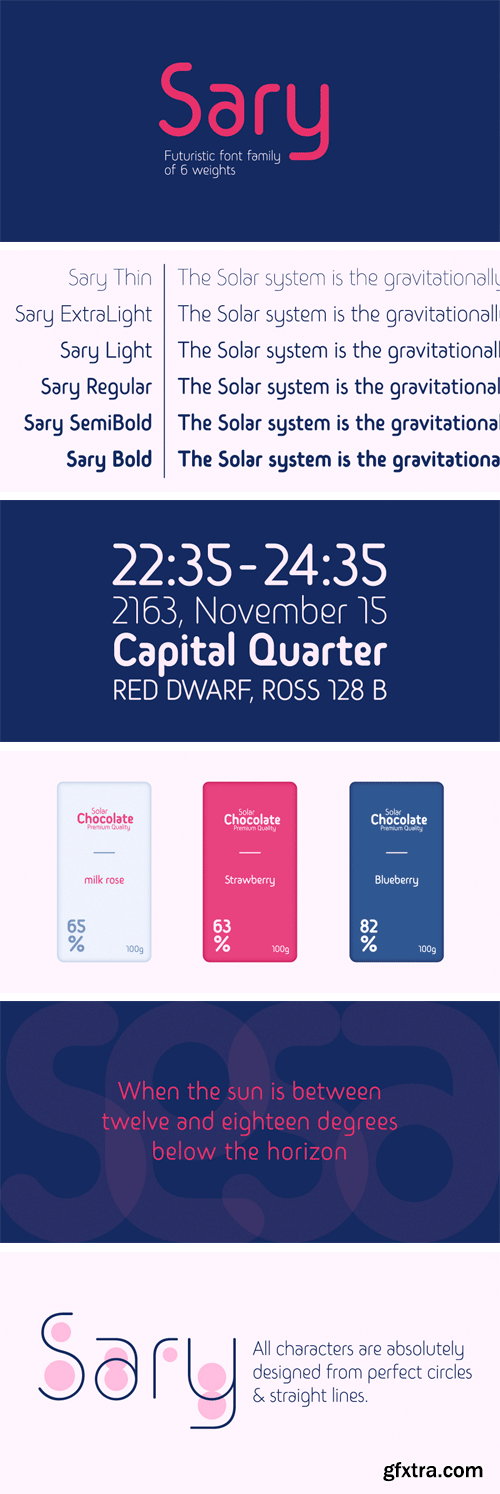
Sary Soft Font Family
Sary is a rounded futuristic typeface. All characters are absolutely designed from perfect circles and straight lines. It comes with 5 font weights from to Thin to Semibold, containd full set of glyphs, including uppercase, lowercase letters, numbers, symbols. multilanguage support. Sary perfectly suits for texts, headlines, logotypes, branding, and other graphic and web design purposes.